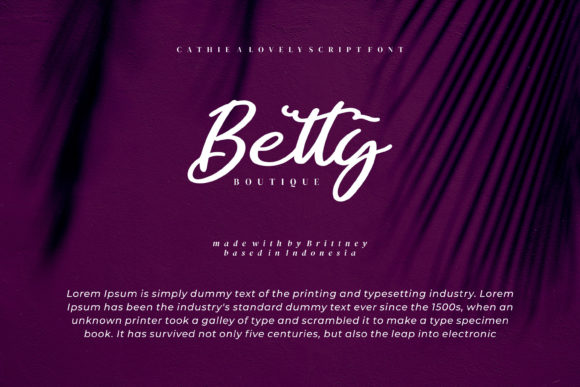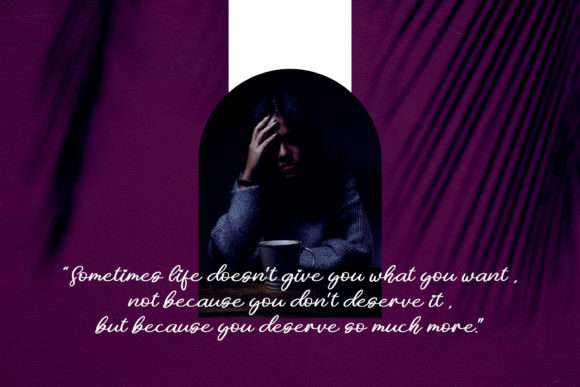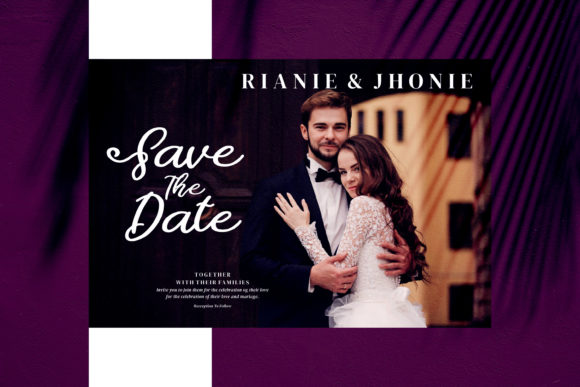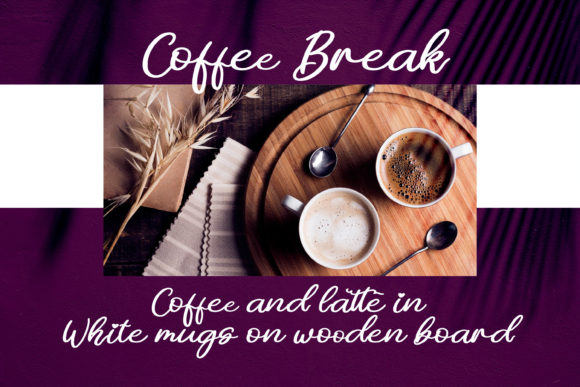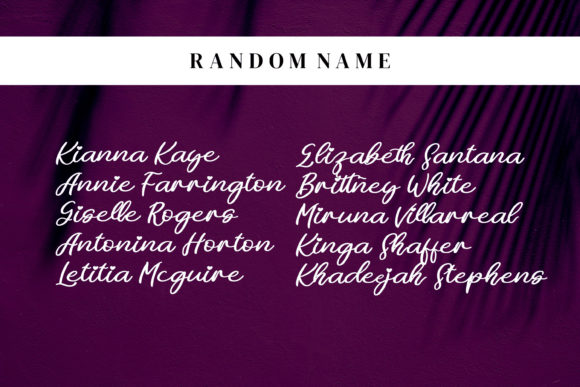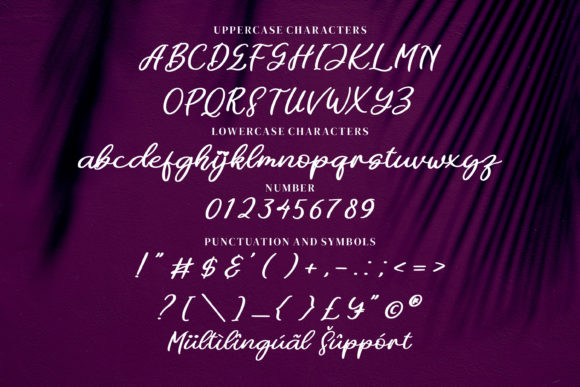
The Elusive Font: How Cathie Became My Go-To Script Font
I still remember the frustration of working on a project, pouring my heart and soul into every detail, only to hit a roadblock when it came to choosing the perfect font. It was for a romantic greeting card design, and I wanted something that would capture the warmth and elegance of the occasion. After hours of scrolling through font libraries, I stumbled upon Cathie – a ravishing handwritten font that instantly stole my heart.
This versatile script font has a wide spectrum of applications ranging from greeting cards to headlines and is guaranteed to add a romantic feel to your next project. In this article, I’ll share my experience with Cathie, highlighting its strengths, quirks, and practical uses across various design platforms.
An Honest Review: What I Love About Cathie
Cathie has quickly become a staple in my font collection, and here’s why:
- ✨ Romantic and elegant feel: Cathie’s handwritten style exudes warmth and sophistication, making it perfect for designs that require a personal touch.
- ✅ PUA encoded for easy access: The font’s PUA encoding means I can easily access all the beautiful glyphs and swashes, making it a breeze to customize my designs.
- 💫 Versatile and adaptable: Whether I’m designing a greeting card, a headline, or a social media graphic, Cathie fits right in.
While Cathie is an amazing font, there are a few things to keep in mind:
- ⚠️ Legibility at small sizes: Like many script fonts, Cathie can become a bit tricky to read at very small sizes. It’s best used at larger sizes or for headlines.
- 🤔 Some manual kerning required: Depending on the design, I might need to adjust the kerning between letters to achieve the perfect flow.
The Story Behind Cathie
While I couldn’t find any information on the font’s creator, I like to imagine that Cathie was designed by a romantic at heart – someone who wanted to bottle up the essence of love and elegance in a single font. Whether that’s true or not, Cathie’s beauty and versatility have captured the hearts of designers and crafters around the world.
| Font Name | Cathie Font |
| Author | integritypestudio |
| What is Cathie best used for? | Cathie is perfect for designs that require a romantic and elegant feel, such as greeting cards, wedding projects, and headlines. |
| Is Cathie easy to read? | Generally, yes. However, like many script fonts, Cathie can become a bit tricky to read at very small sizes. |